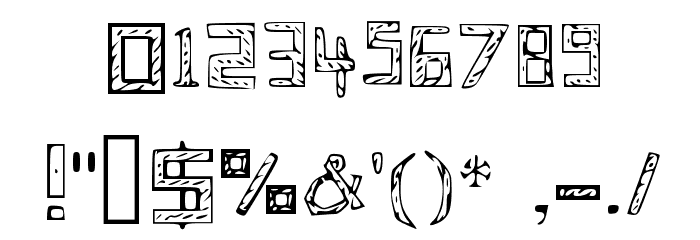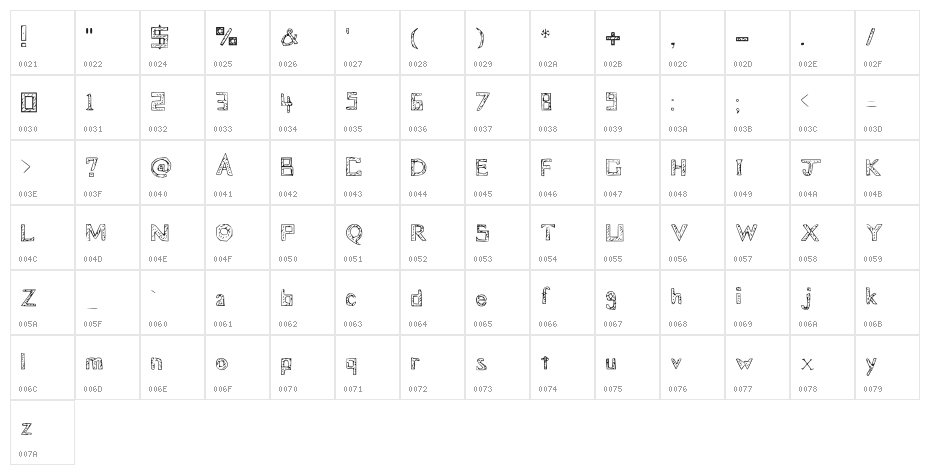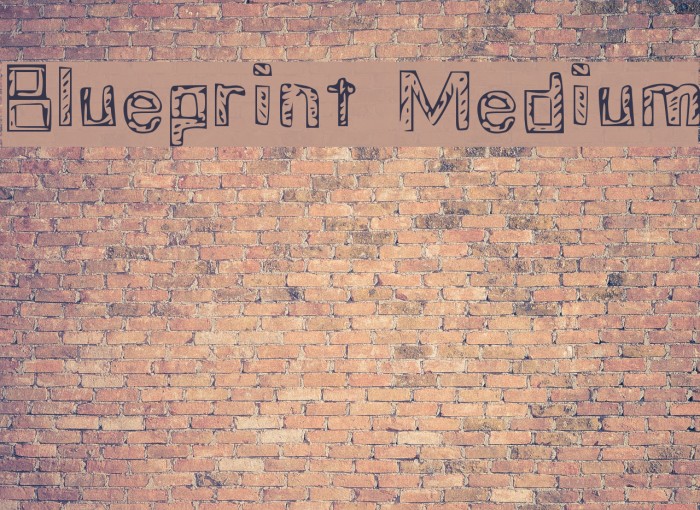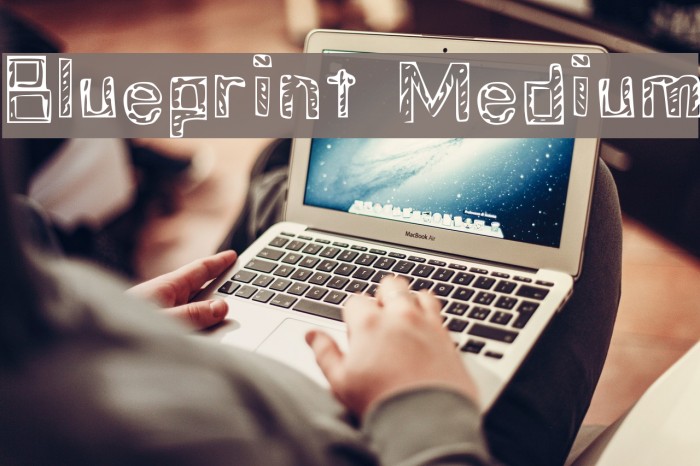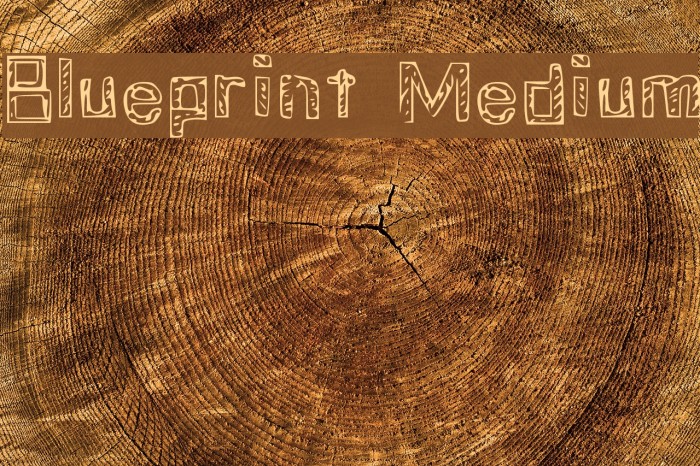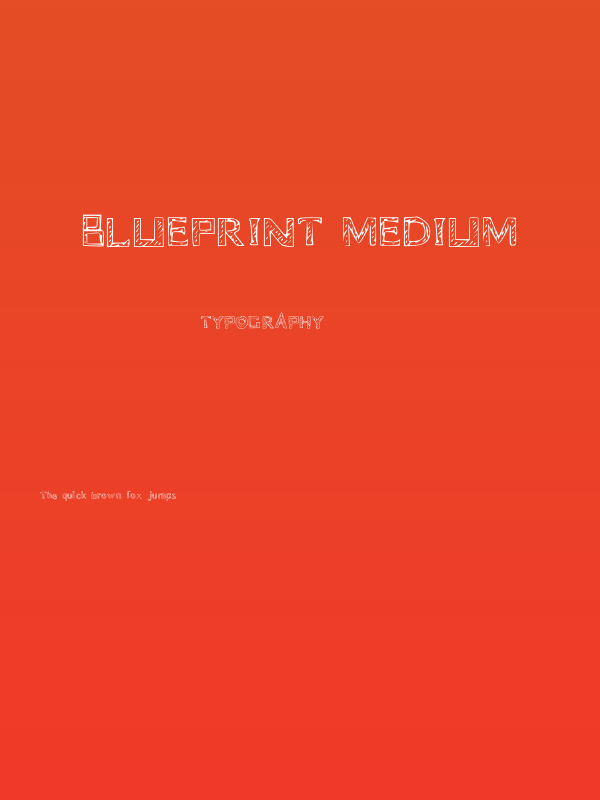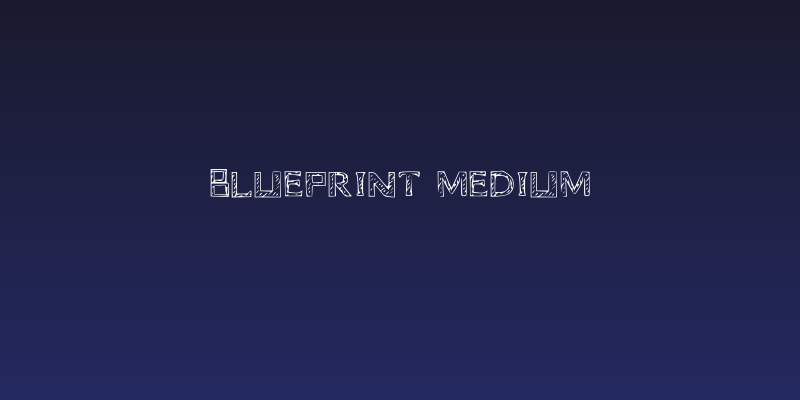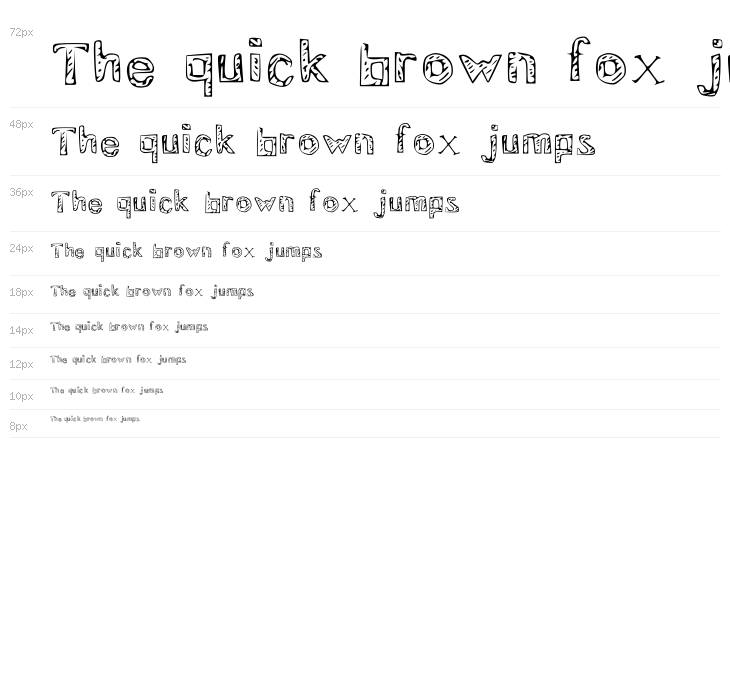
Blueprint Medium Font
Blueprint Medium Description
This font features a unique, hand-drawn style that mimics the look of architectural blueprints. Each character is outlined with a sketch-like quality, incorporating subtle shading and line work that adds depth and dimension. The uppercase and lowercase letters maintain a consistent design, with angular forms and a slightly irregular appearance that enhances the handcrafted aesthetic. Numbers and special characters follow the same design principles, ensuring a cohesive look across all glyphs. The font's playful yet structured style makes it ideal for creative projects that require a distinctive and artistic touch.
Overall StyleArtistic, Handcrafted
Proposed ProjectsIdeal for architectural presentations, creative posters, artistic branding, and educational materials.